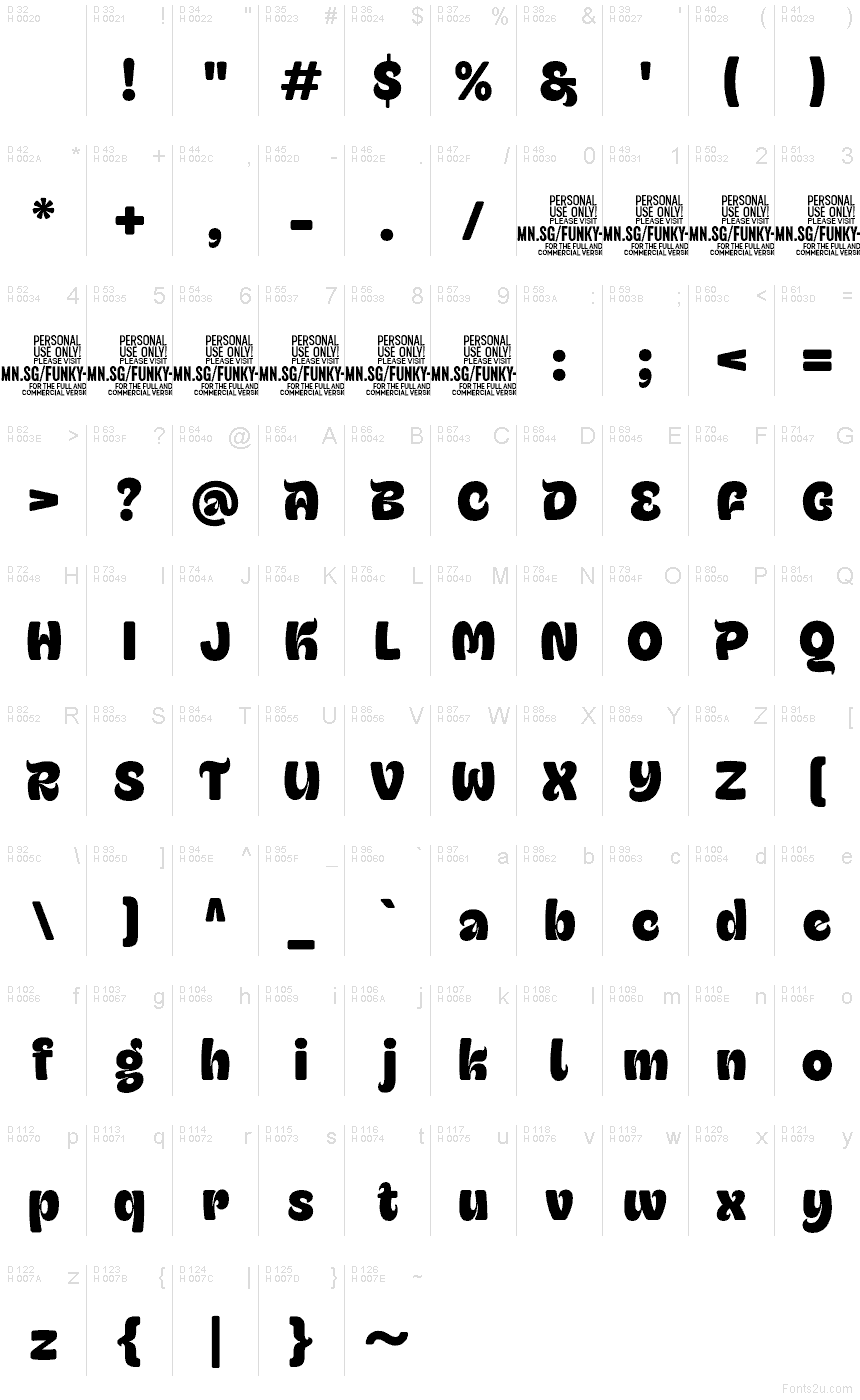
Funky Bird PERSONAL USE Regular
Funky Bird font by Mans Grebäck is a groovy display typeface oozing with playful charm. With bulbous curves and bouncy shapes, this bold font exudes a warm and inviting personality. It combines wavy, irregular, and whimsical elements with retro-inspired vibes and freeform serif influences to create a nostalgic visual identity that leaves its mark with any title.
This expressive free font conveys character in entertainment or fashion branding projects, event posters, kids book titles, packaging designs for playful products, signage for child-related activities or establishments; bakery shop logos; comics’ design as well as greeting card or apparel prints focused on youthful audiences.